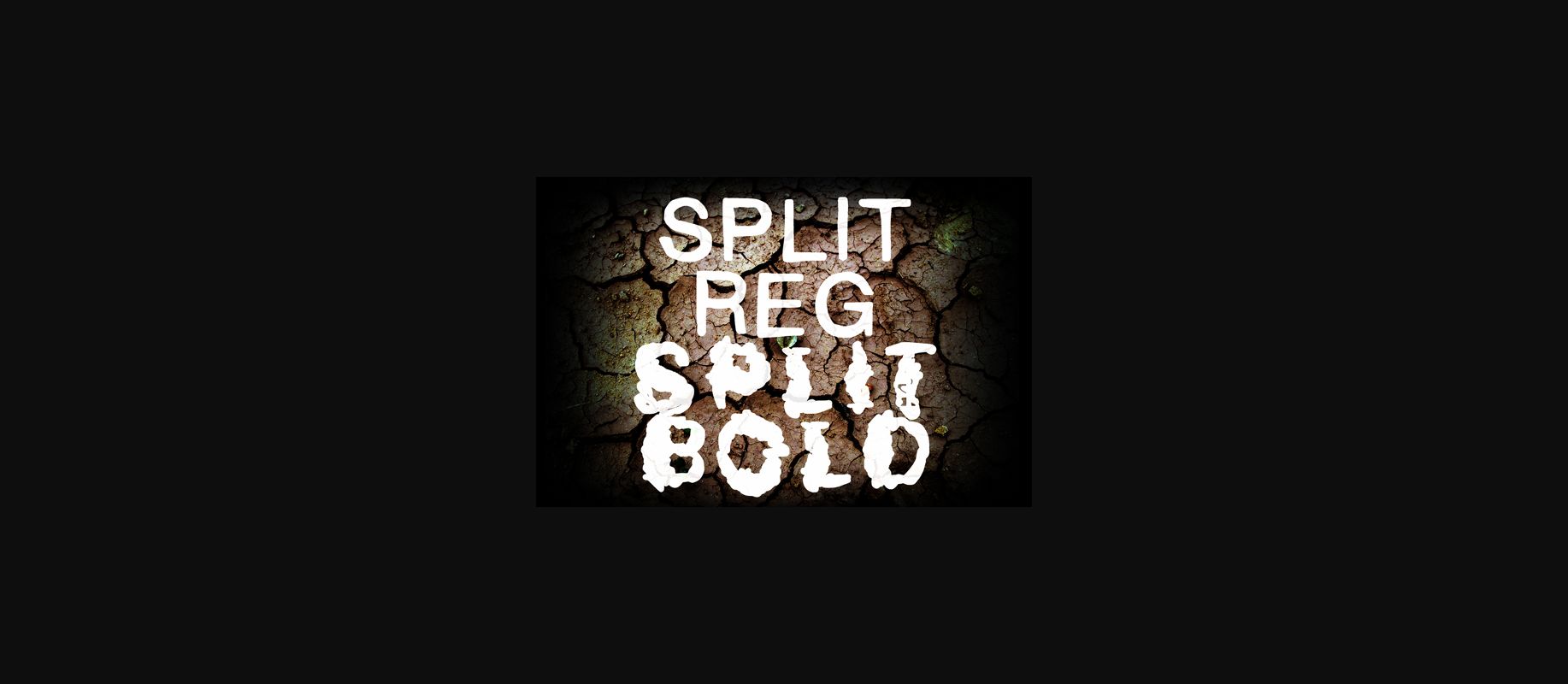
HomeDecorative FontsSplit Font Decorative Fonts Split Font FacebookXPinterestWhatsApp 1 of 1 About Split Font Never let dairy over heat or it ends up looking like this font… In two weights. DOWNLOAD NOW People also explored Travel Journal Font Battic Font Spring Font School Font Lust Slim Funtastic Youth Duo Font Bellastory Font Polka Dot Font Abermad Font 286 0 TagsSplitSplit Font Previous articleItchy FontNext articleStitch Rounded Font LEAVE A REPLY Cancel reply Comment: Please enter your comment! Name:* Please enter your name here Email:* You have entered an incorrect email address! Please enter your email address here Website: Save my name, email, and website in this browser for the next time I comment. Personal Use Free Mini Story Personal Use Free Read more about this font Welliana Personal Use Free Read more about this font Carrolina Personal Use Free Read more about this font Soulties Personal Use Free Read more about this font BLOG Modern Sans-Serif Fonts That Brands Love in 2025 In 2025, modern sans-serif fonts remain a top choice for brands looking to project clarity, professionalism, and... Top 7 Google Fonts Alternatives for Faster and Privacy-Friendly Web Design (2025) Free vs Paid Fonts: Why Investing in Premium Fonts Is Worth It How to Cut Any Font on Cricut: Convert a Font to SVG (Free)